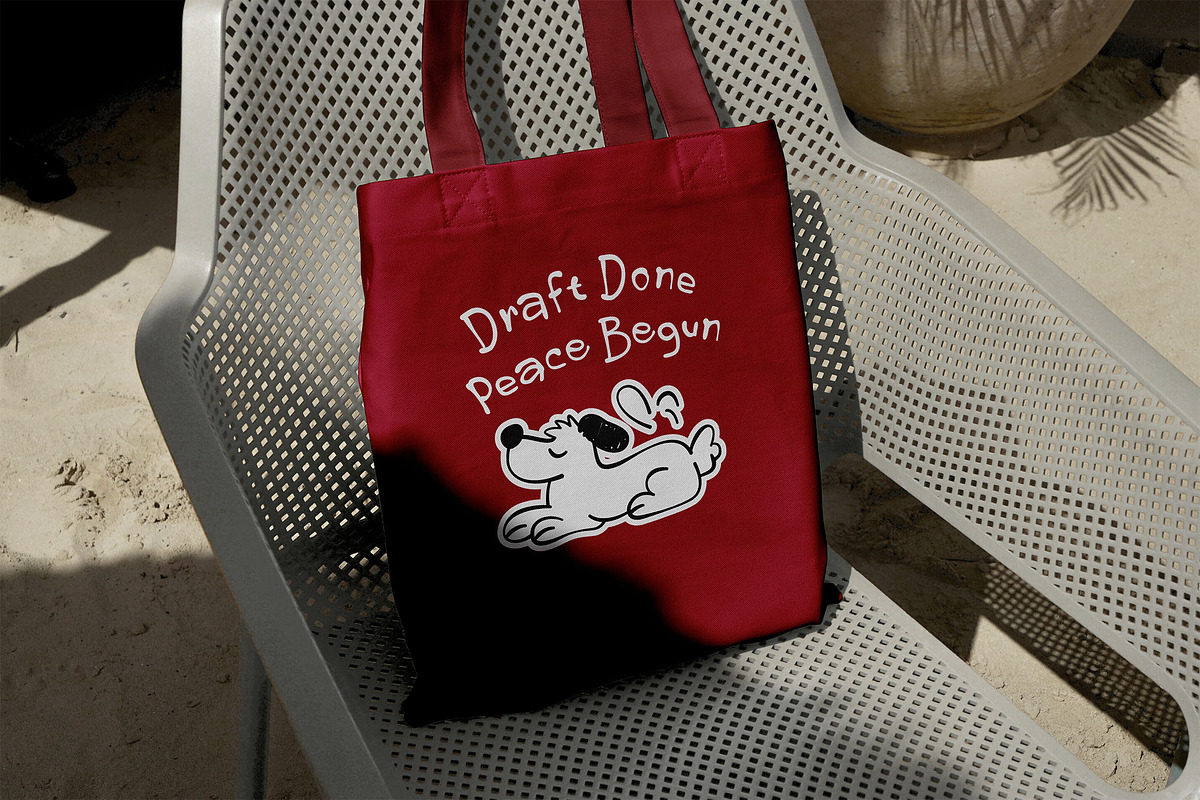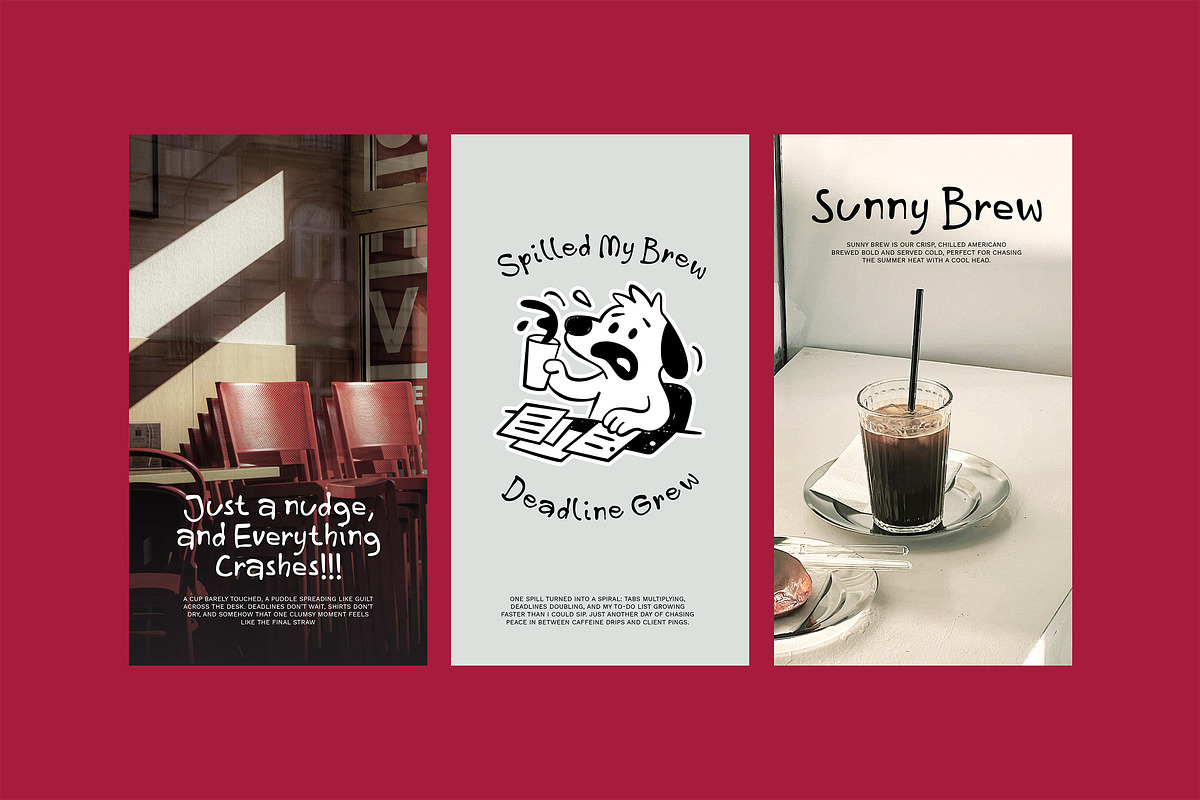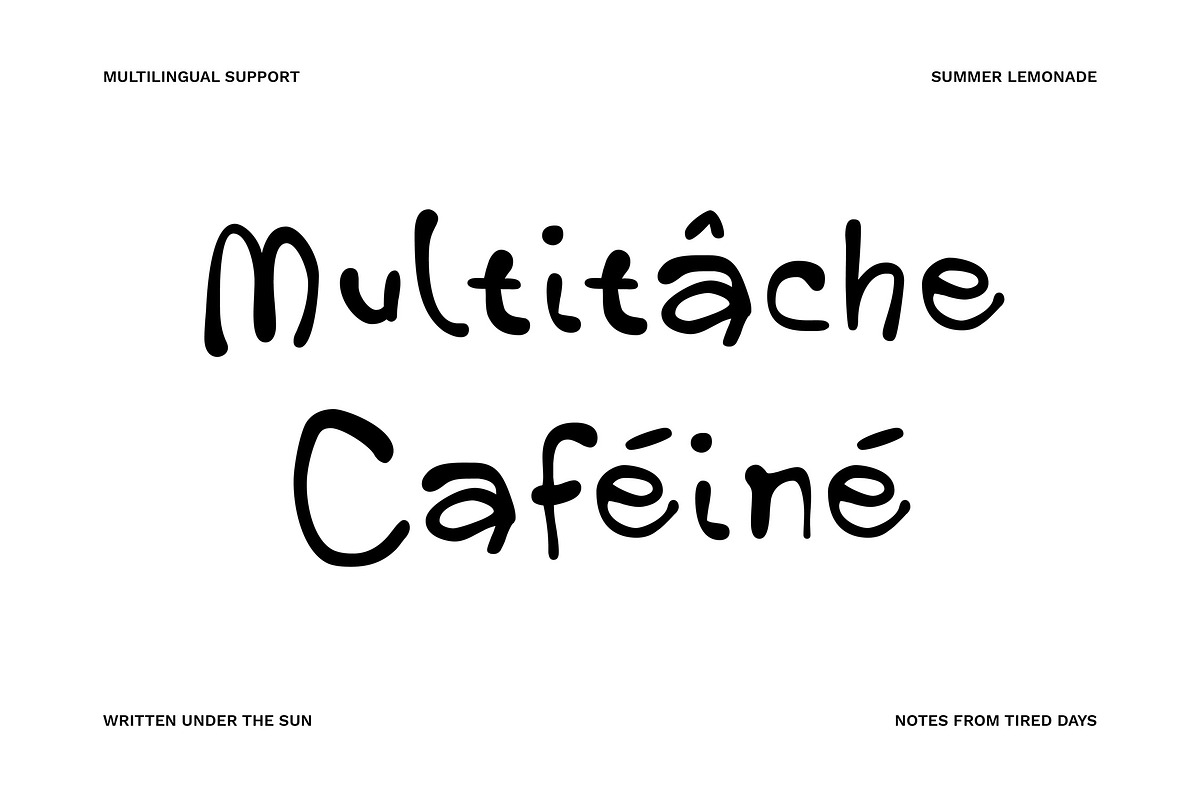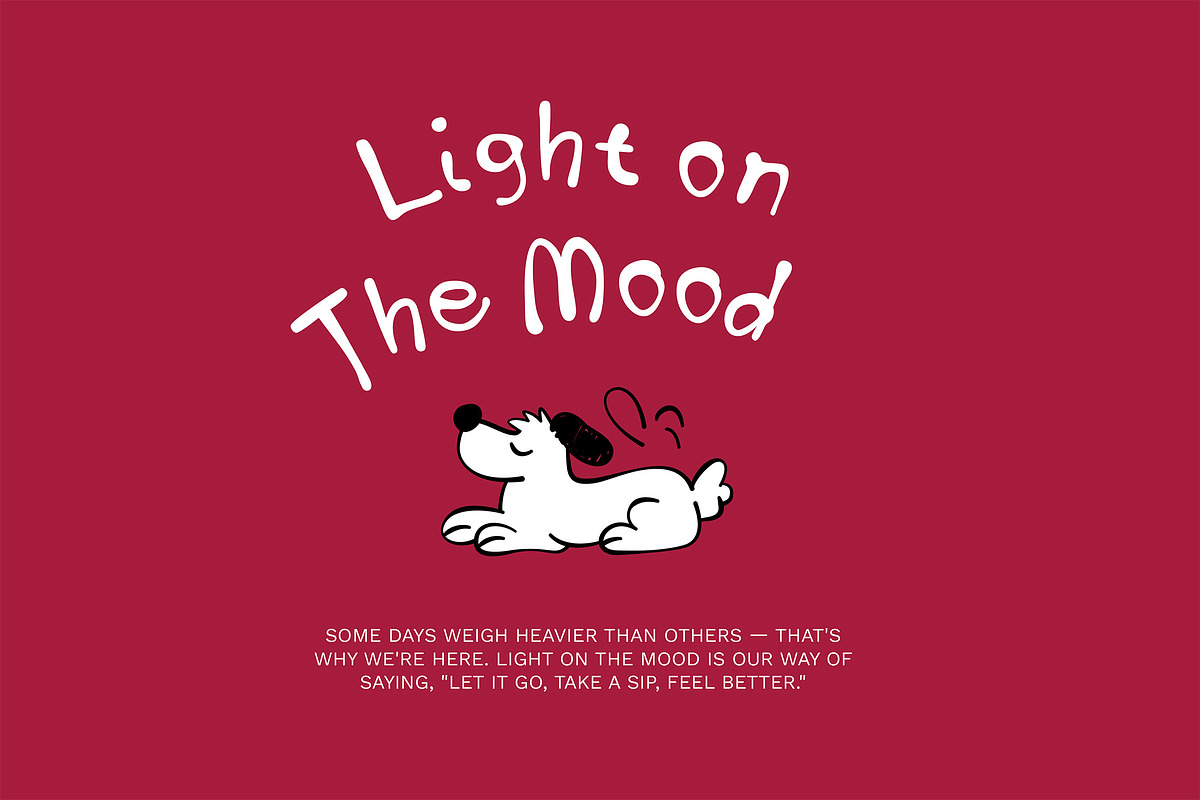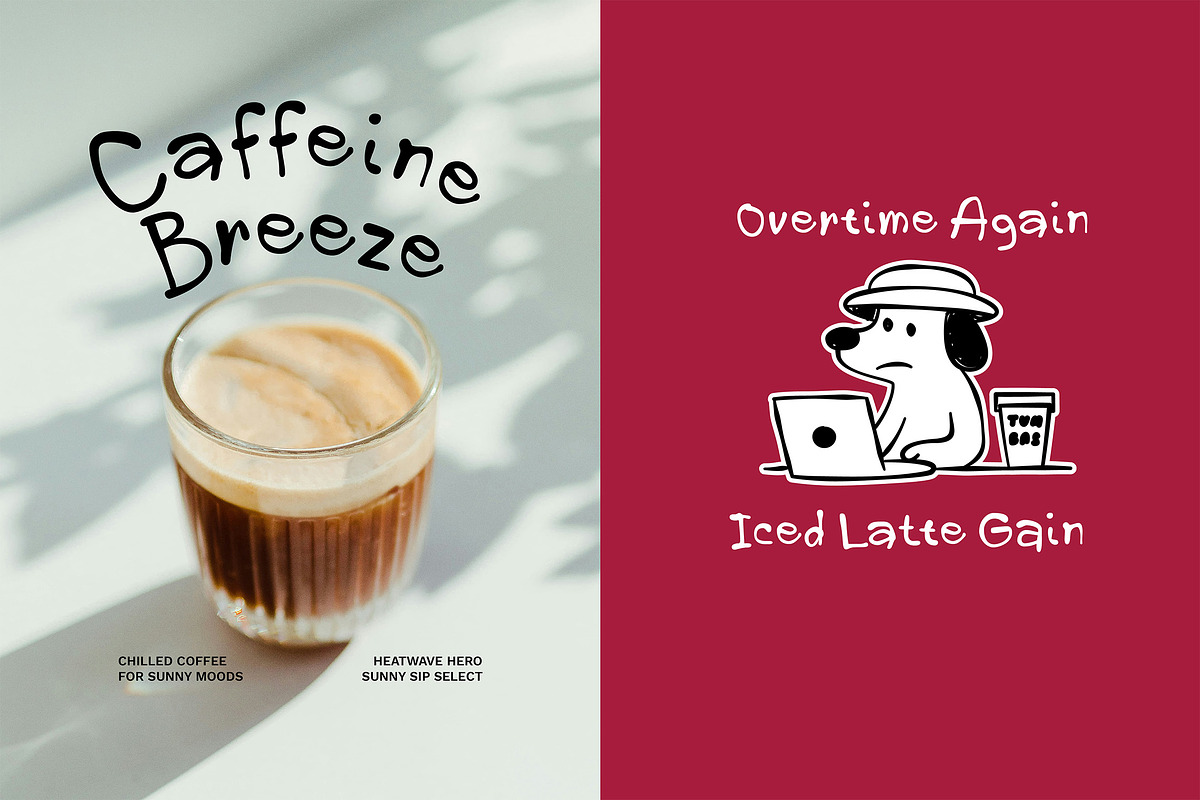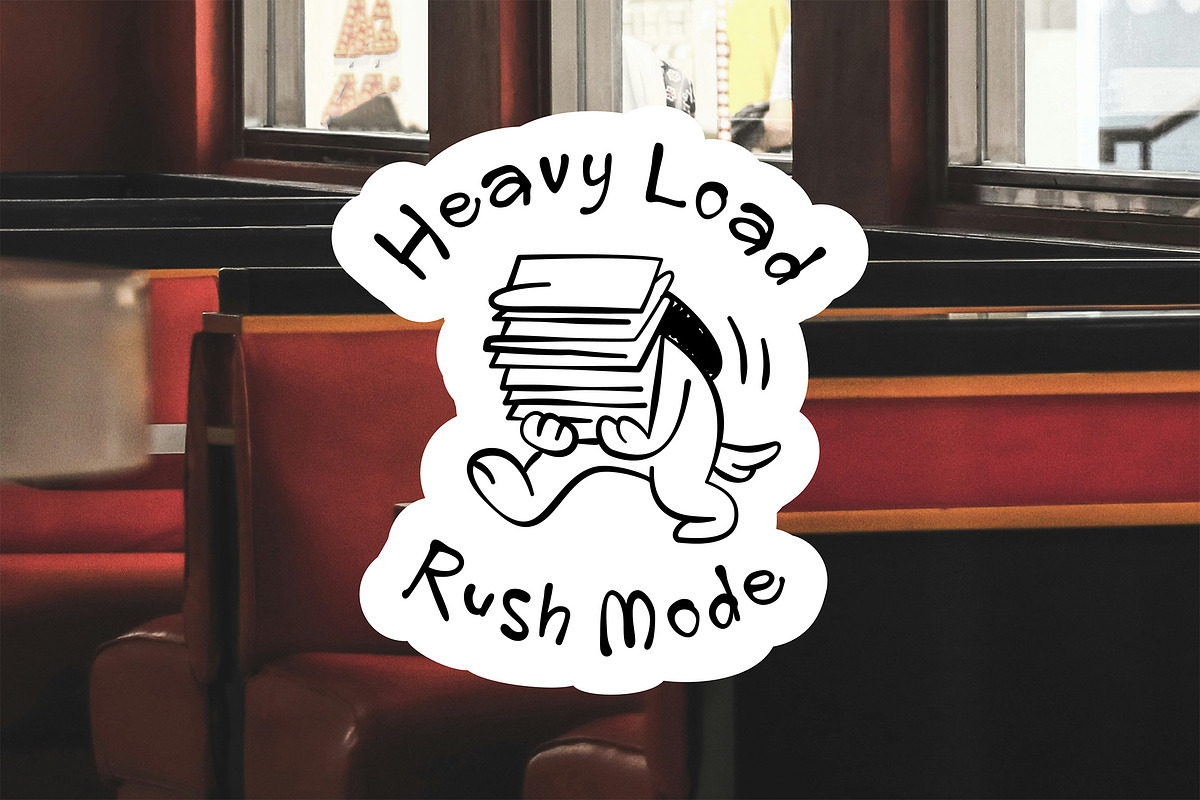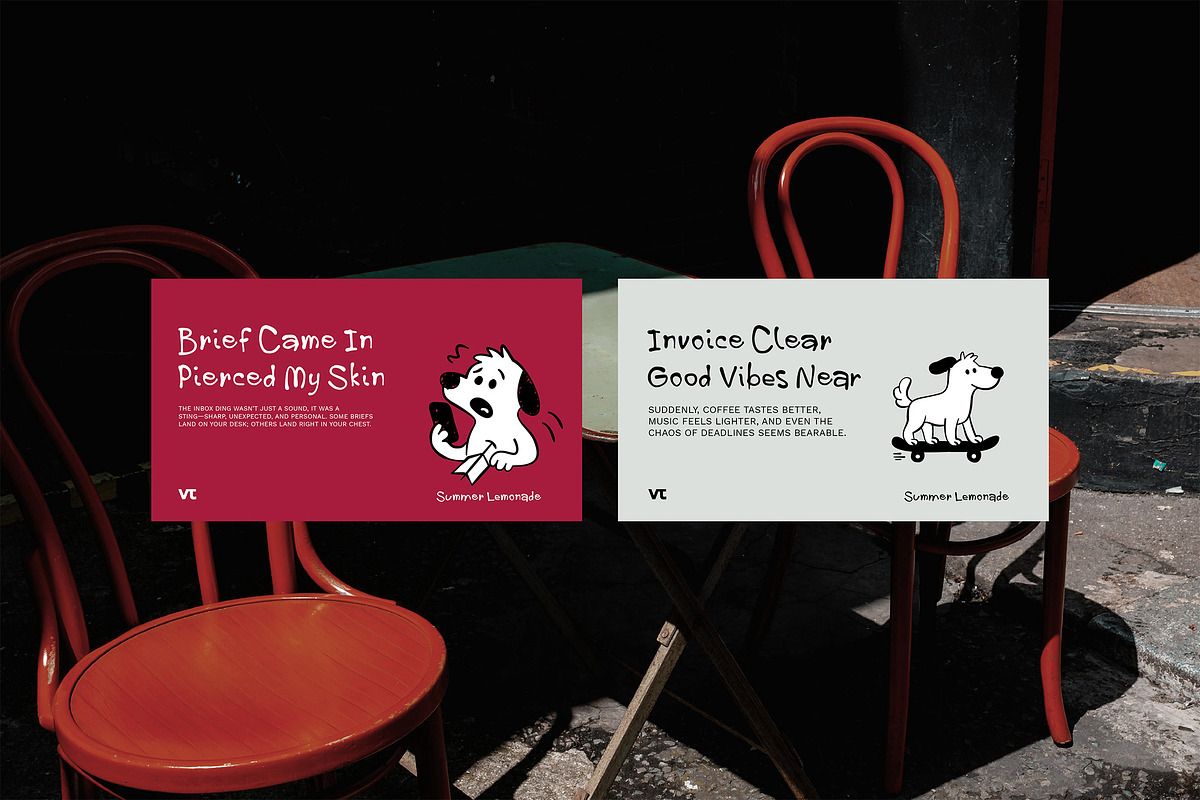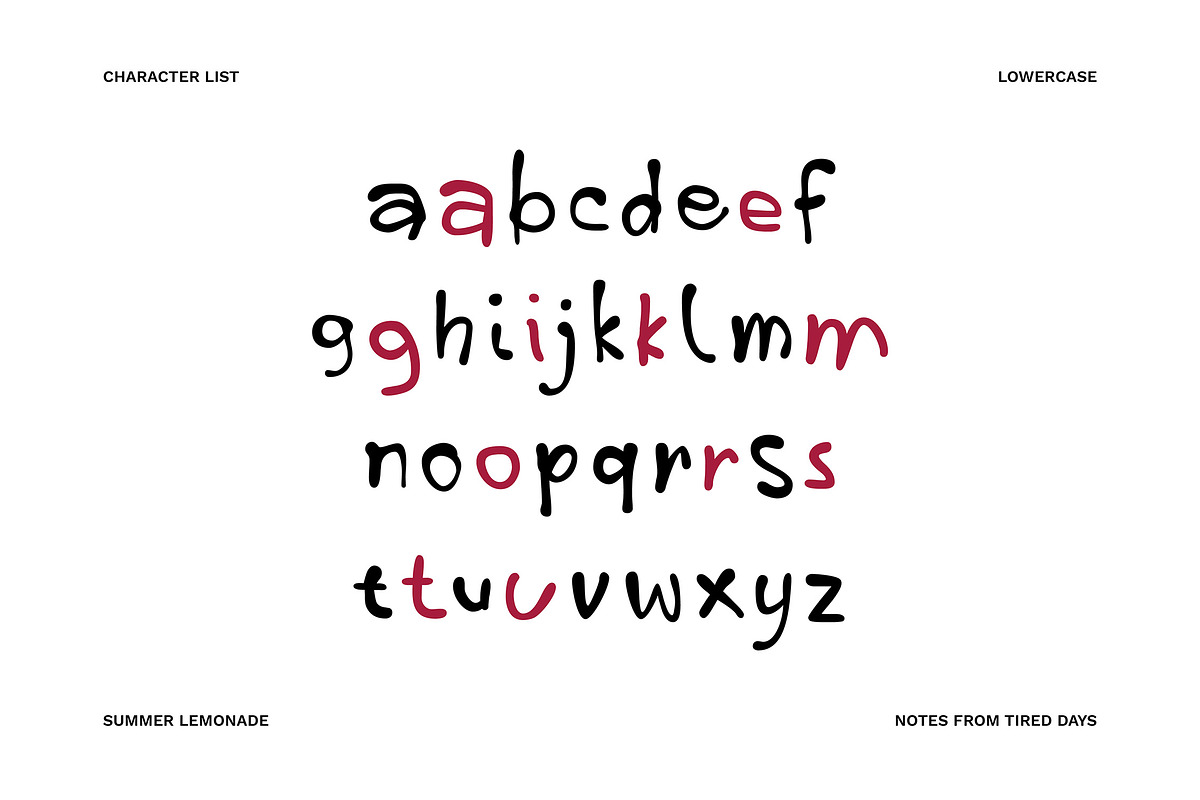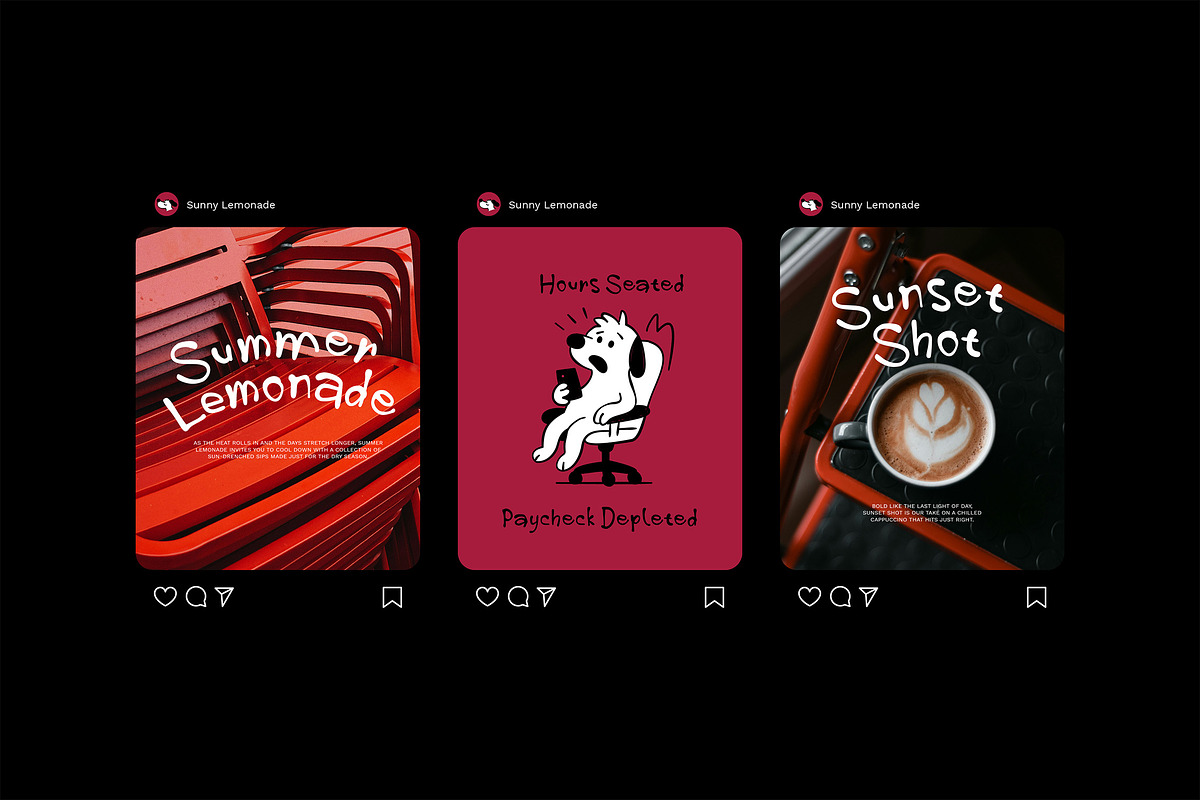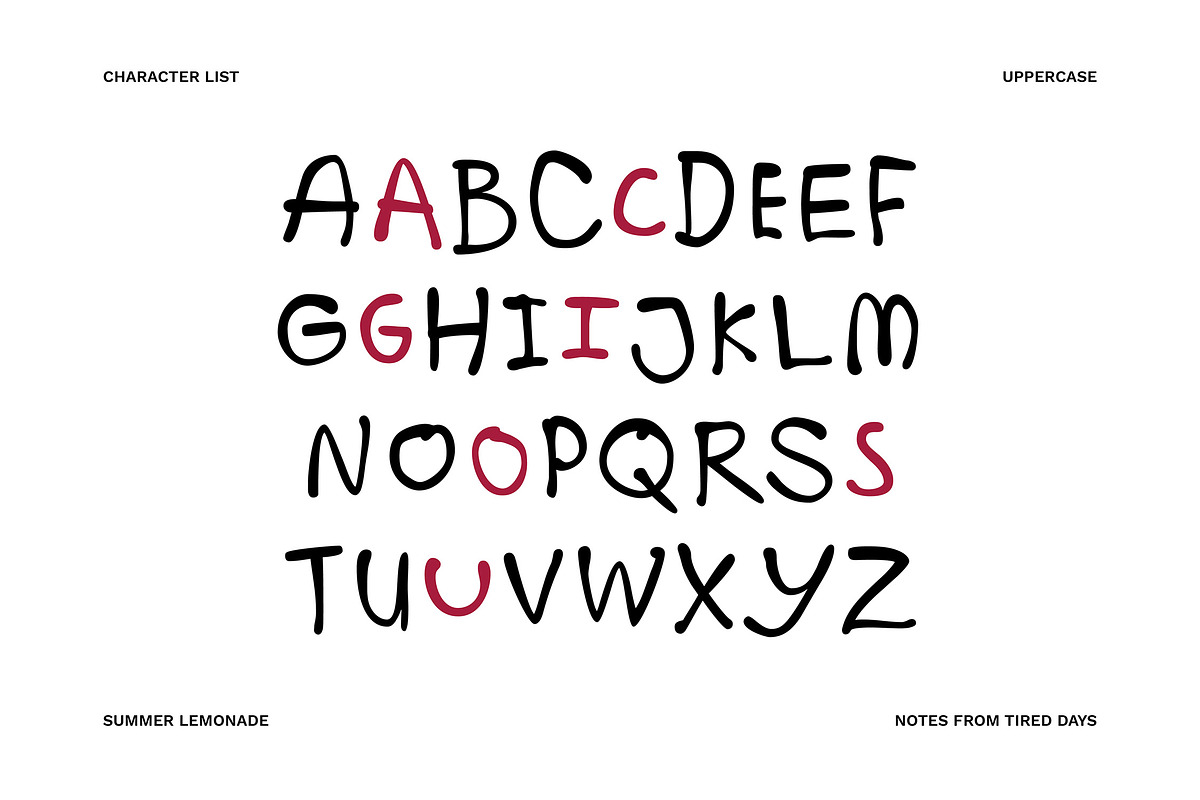
Summer Lemonade - Handwritten Charm
Summer Lemonade is a playful handwritten font inspired by long, sunny days and that sweet, slightly tired feeling when all you want is something cold and comforting. With soft curves and a breezy, casual flow, it captures the charm of scribbled thoughts, coffee breaks, and those little moments when the fan is your best friend. Every letter feels personal, like a note passed on a warm afternoon.
Perfect for product packaging, café branding, drink labels, social media graphics, and anything that needs a lighthearted, human touch. Summer Lemonade brings a feel-good, handcrafted vibe to your design—whether you're launching a seasonal menu, designing a mood board, or simply adding a bit of sunshine to your visuals.